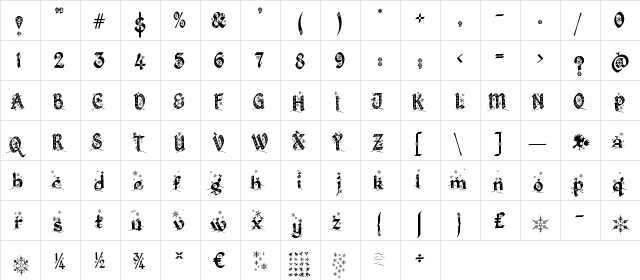
Kingthings Christmas 2 Regular
| Designer | Kevin King 2007/2009 |
Design Context for Kingthings Christmas 2 Typeface
Kingthings Christmas 2 is a composed and adaptable typeface that performs quietly and consistently across a wide range of design contexts. The delicate stroke weight brings airiness and refinement to layouts.